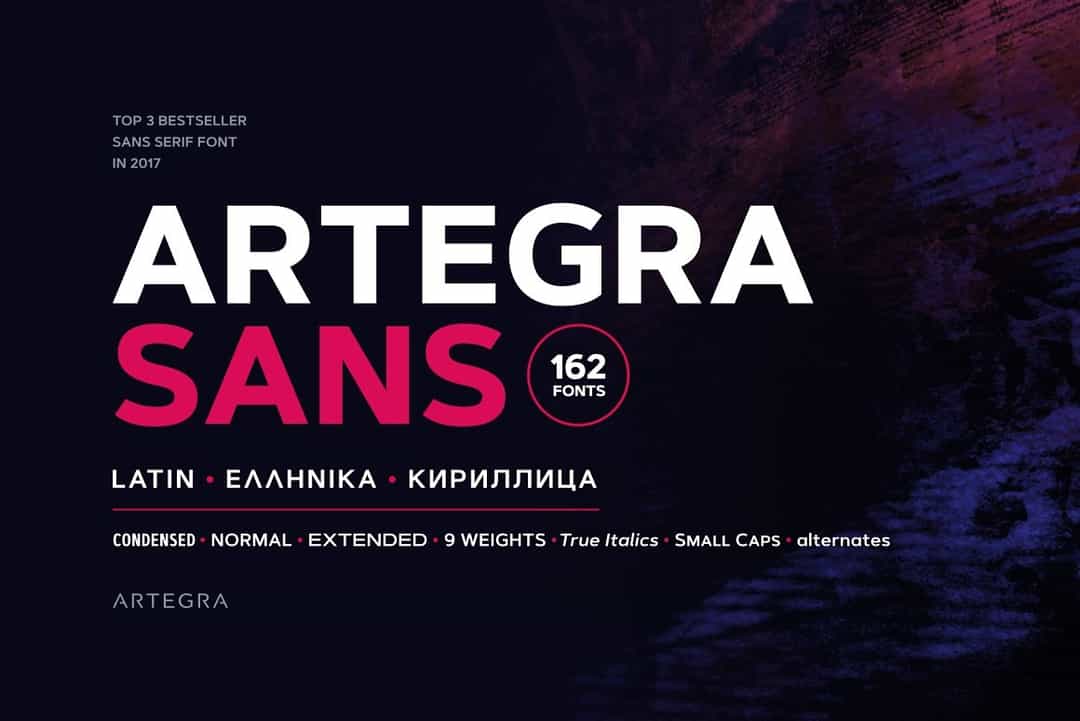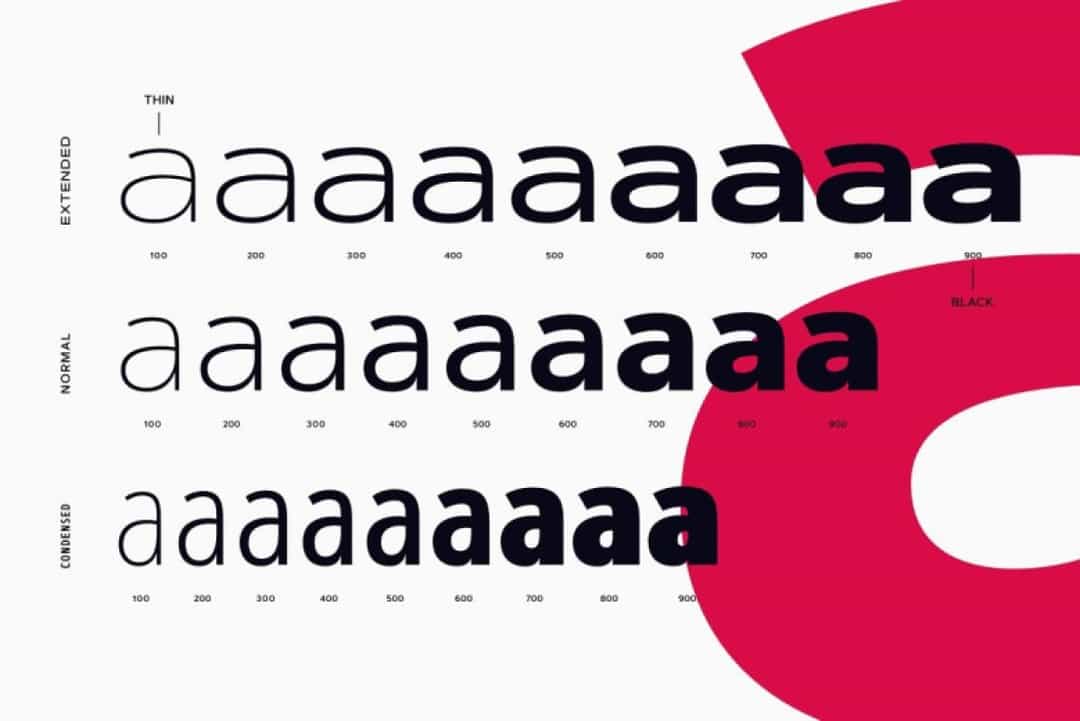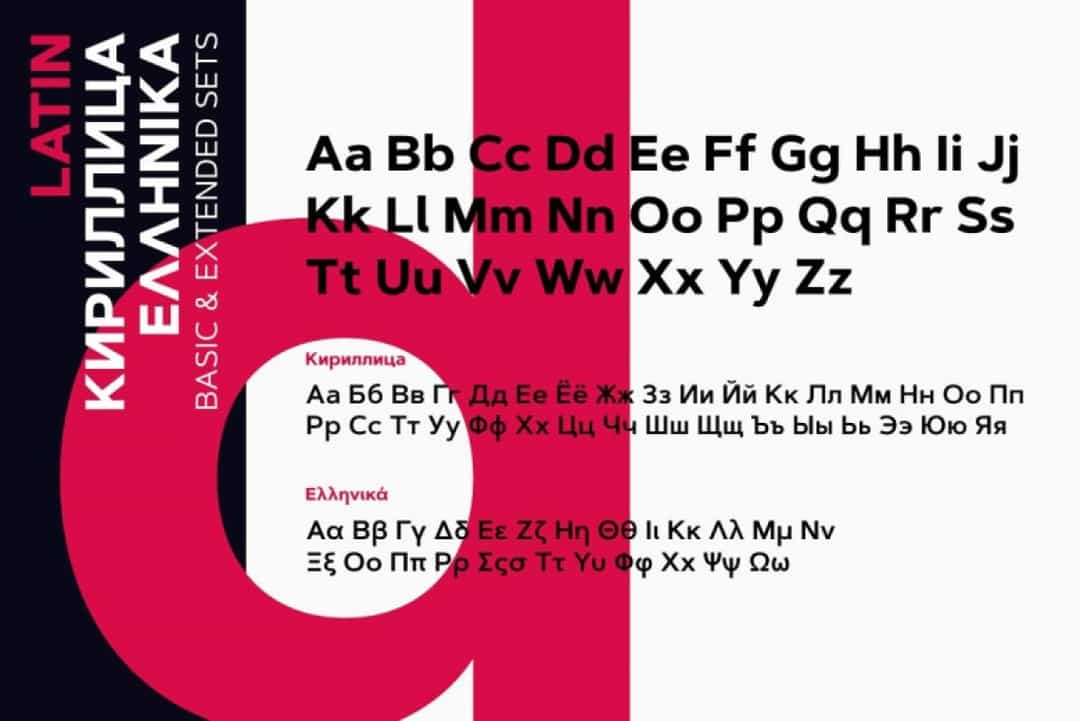
Artegra Sans’ concept was simple: to design one of the world’s largest typeface families while upholding top aesthetic and technical standards across every font included in it. This resulted in an exceptional 162-font typeface which serves as a testament to writing’s universal unifying power.